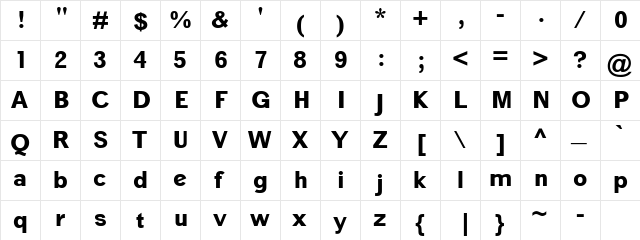
Ziclose Normal
| Designer | Emanes Design |
Ziclose takes a measured approach to typography — its balanced proportions and neutral character make it a reliable workhorse for both digital and print work.